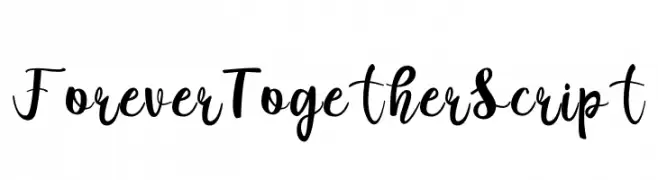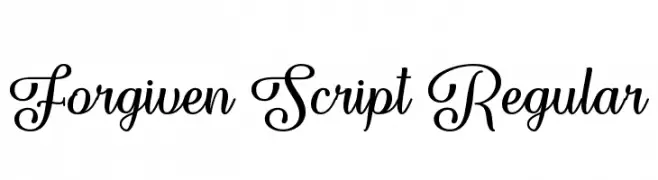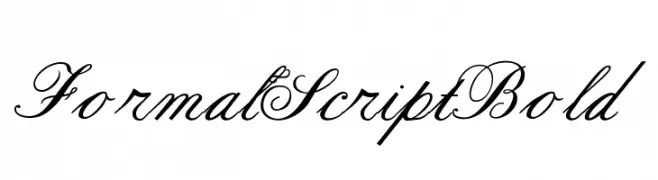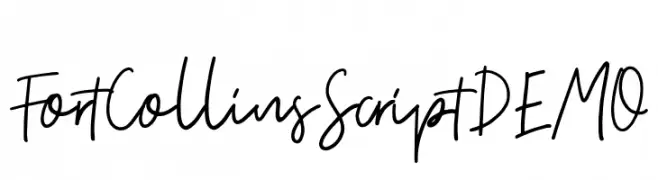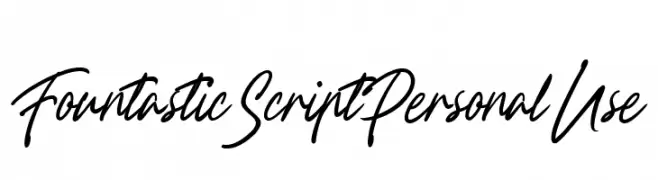
A bold, elegant script font with intricate, flowing letterforms.
An elegant script font with flowing, cursive letterforms and intricate details.
An elegant script font with smooth, flowing lines and a sophisticated appearance.
A lively handwritten font with fluid and dynamic strokes.
A lively, cursive script font with smooth, interconnected strokes.